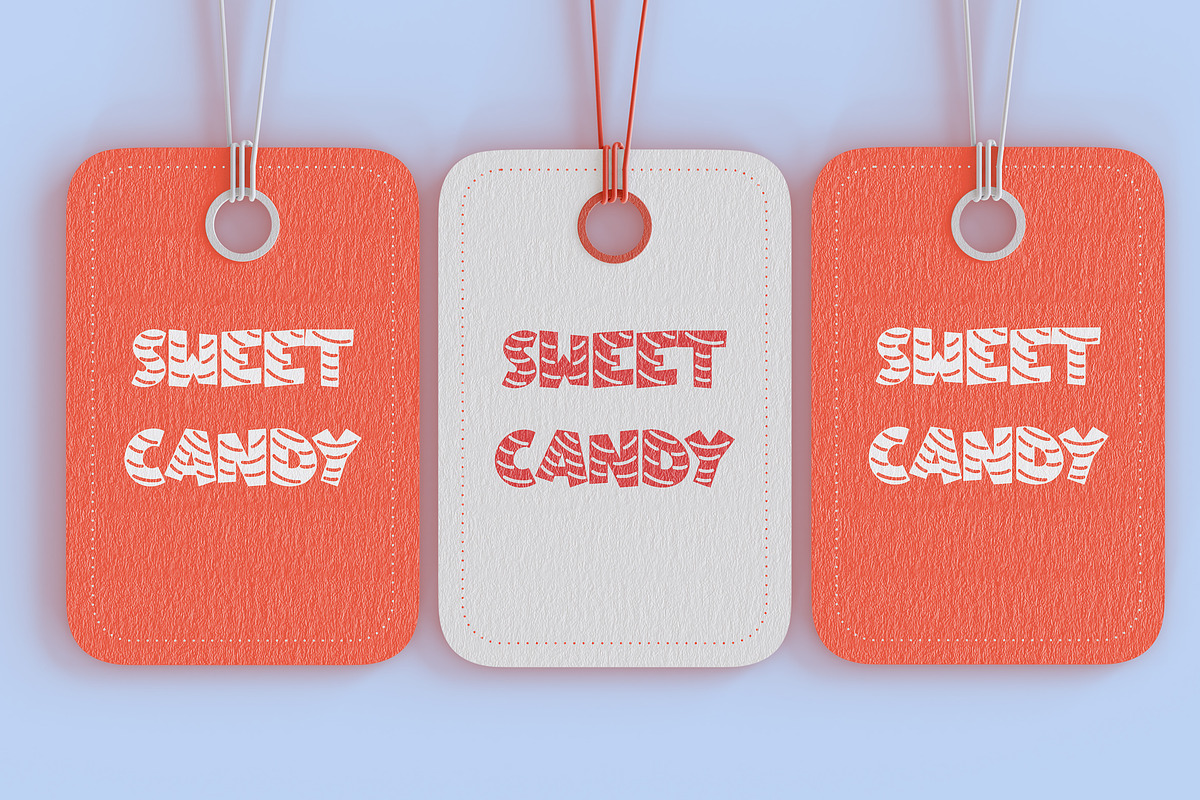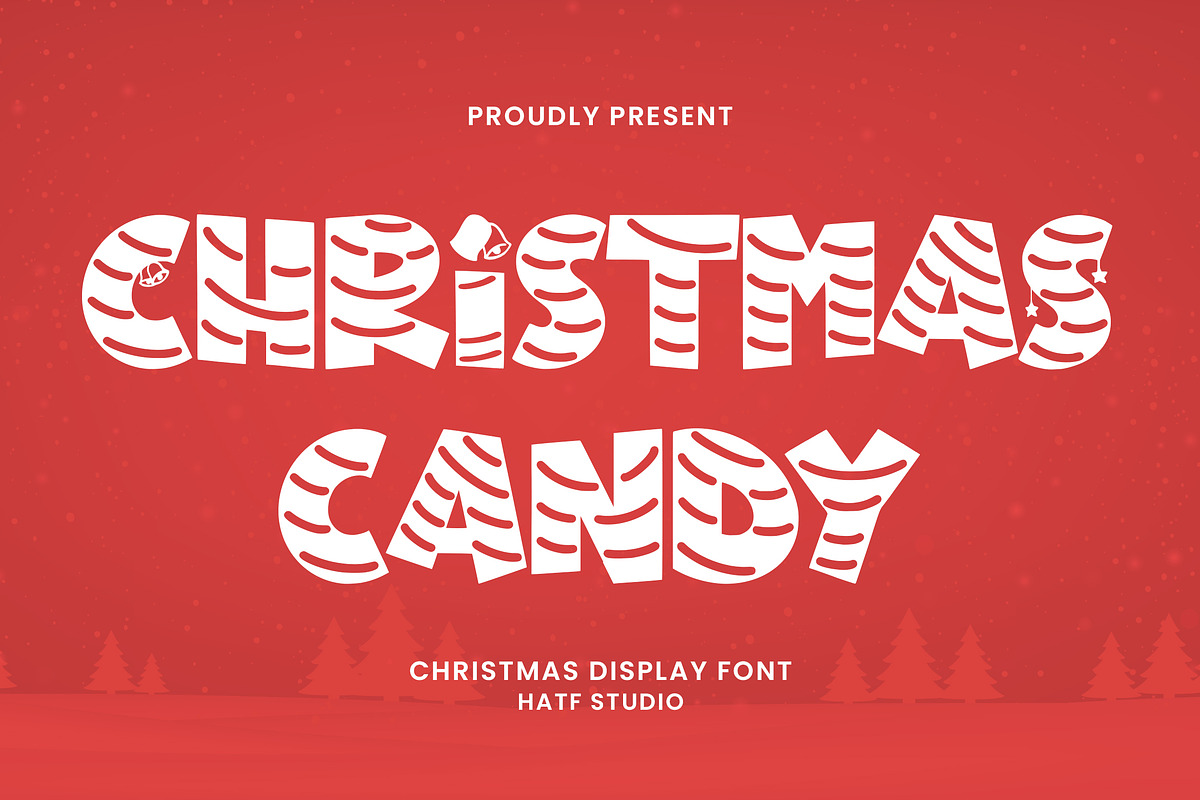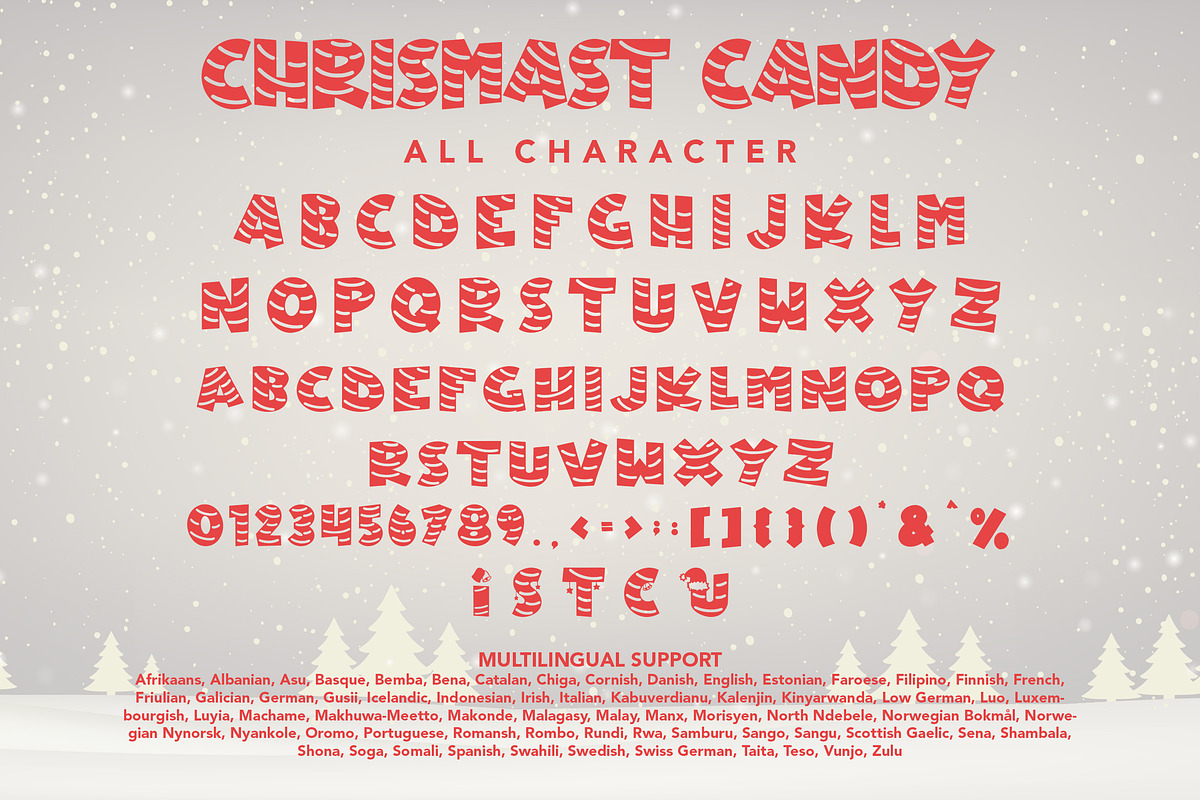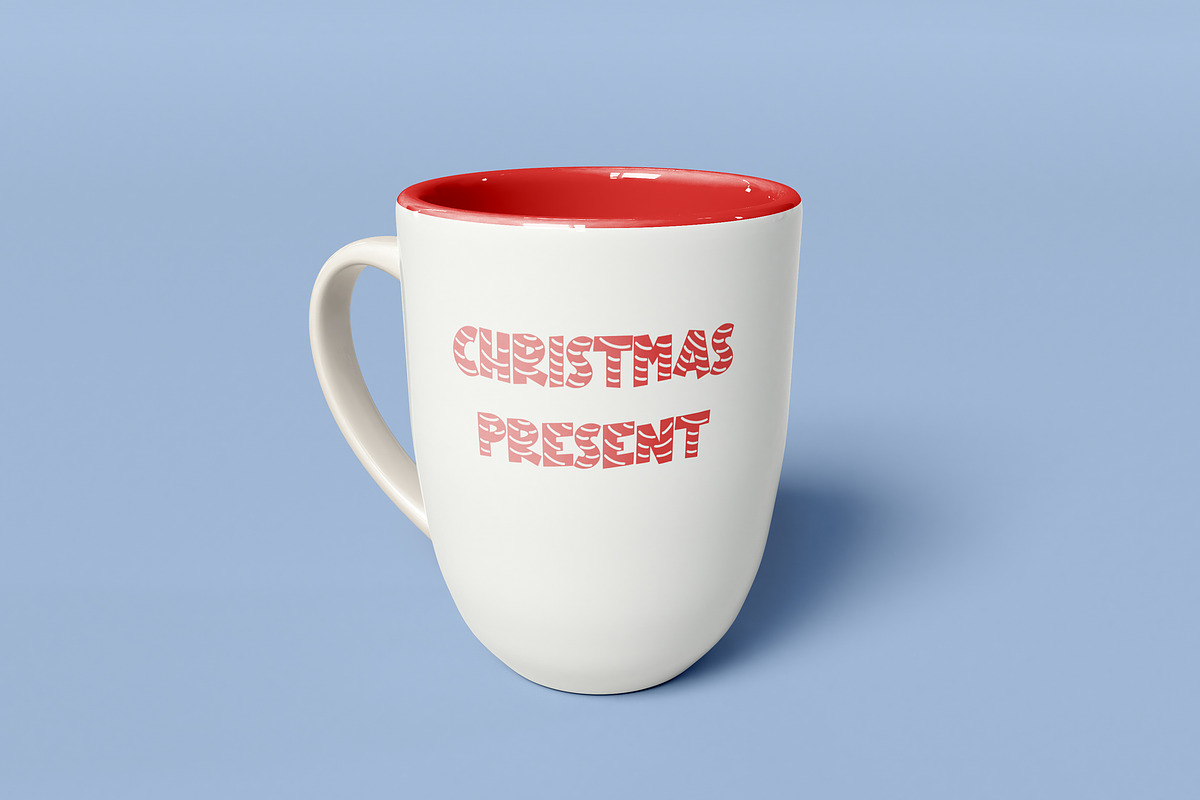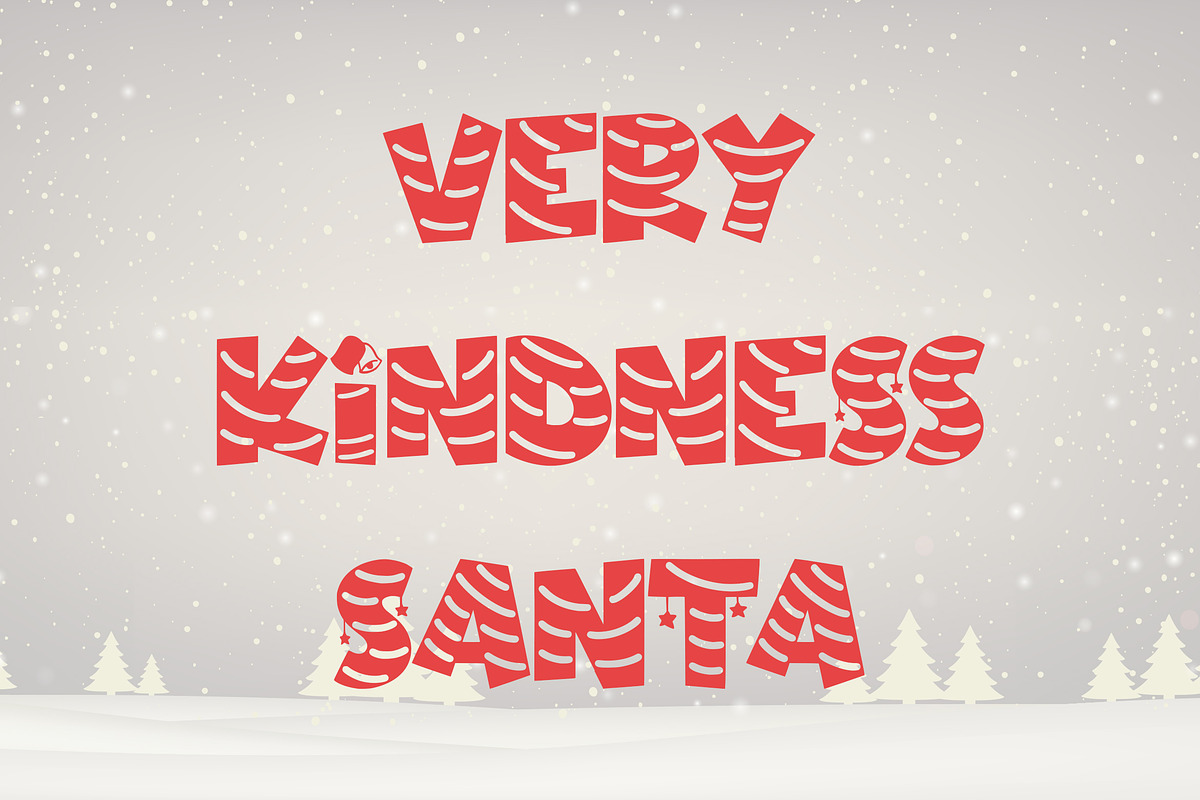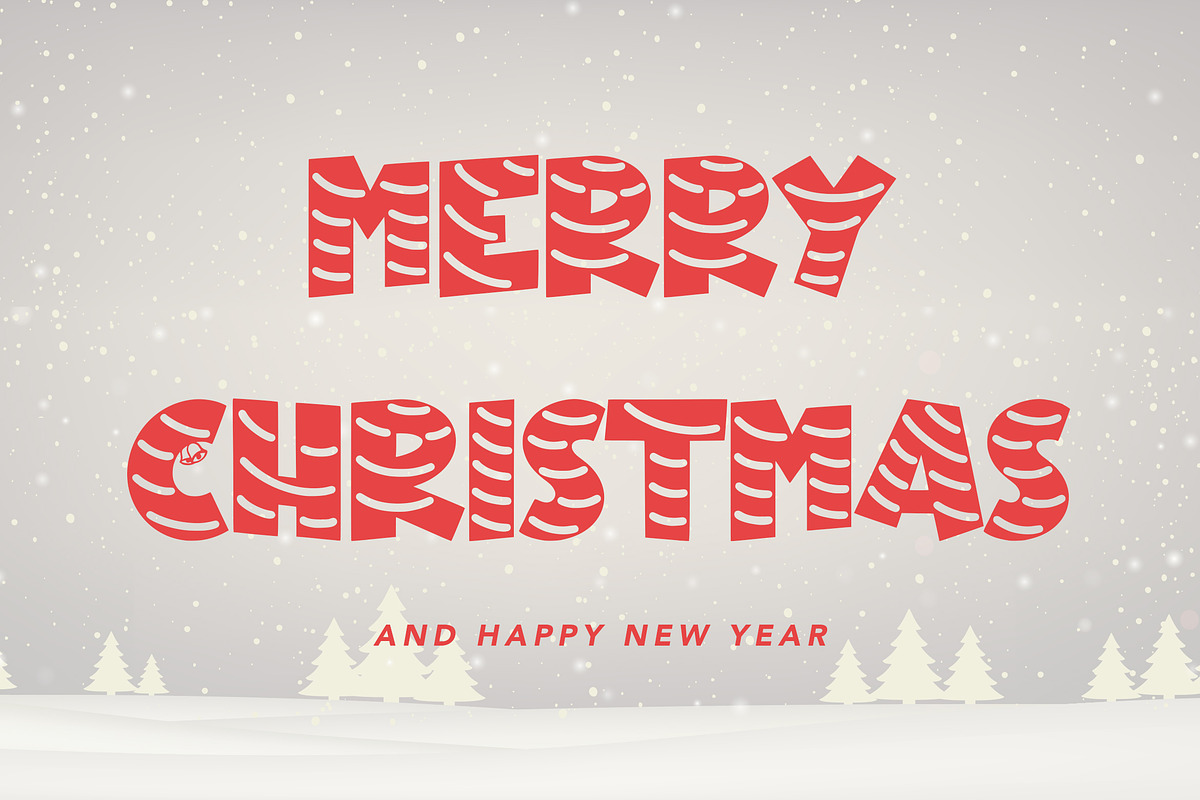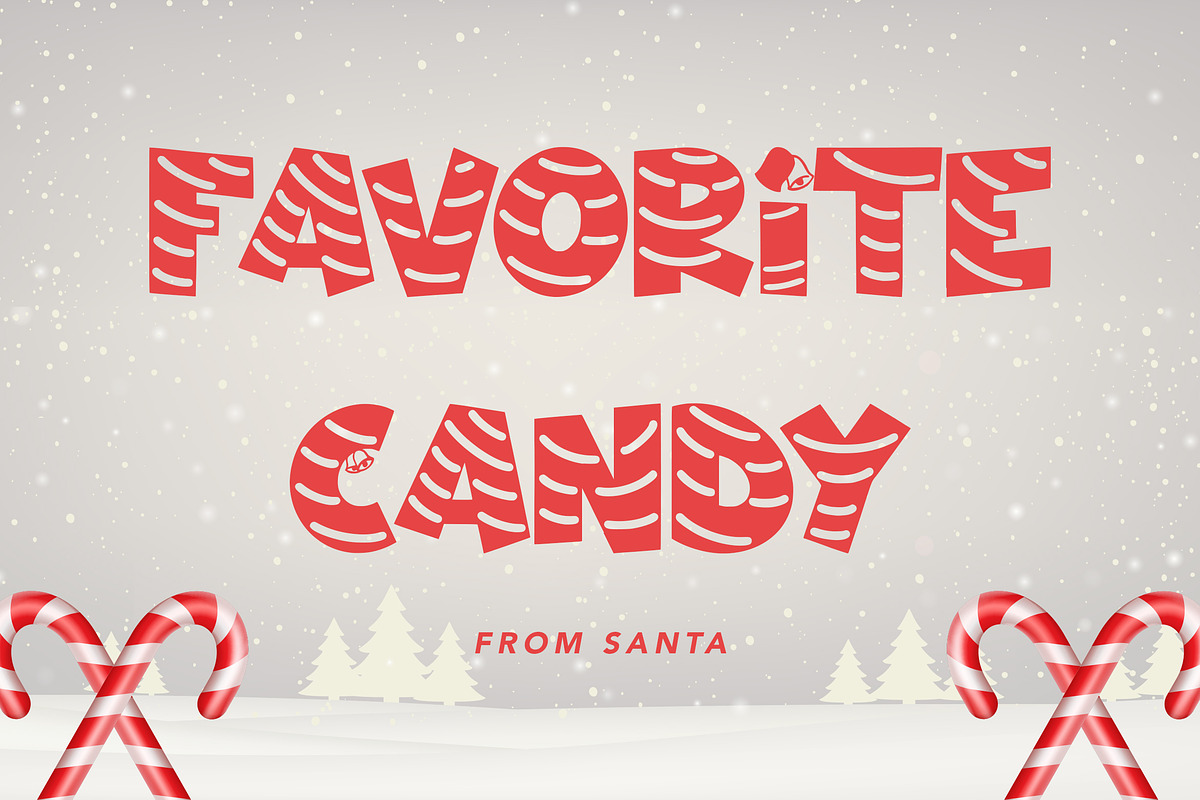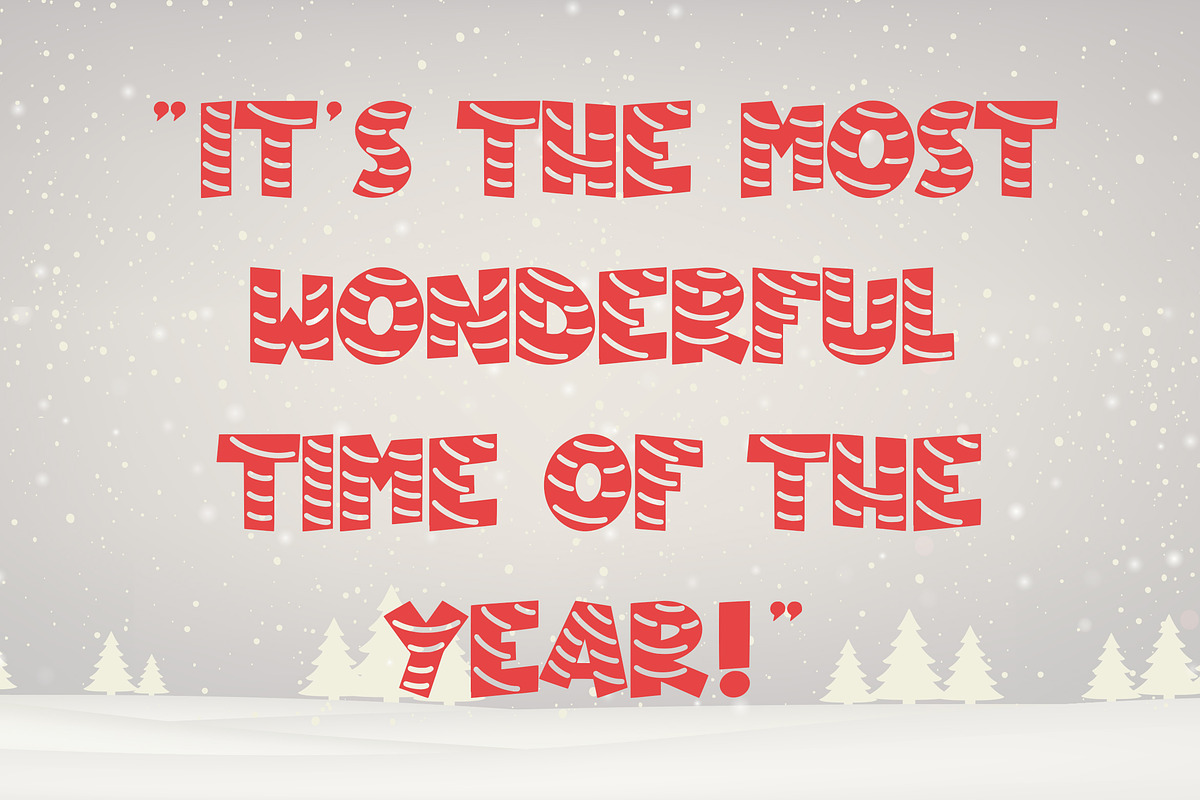
Christmas Candy
Is a christmas display font with distinctive handwritten characters perfect for branding projects, logos, clothing designs, media posts, advertisements, product packaging, product designs, labels, photography, watermarks, invitations, stationery, and any project who need handwritten dishes.